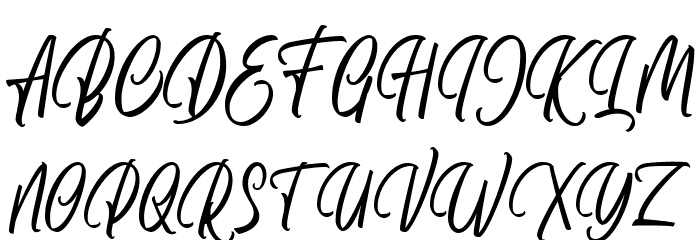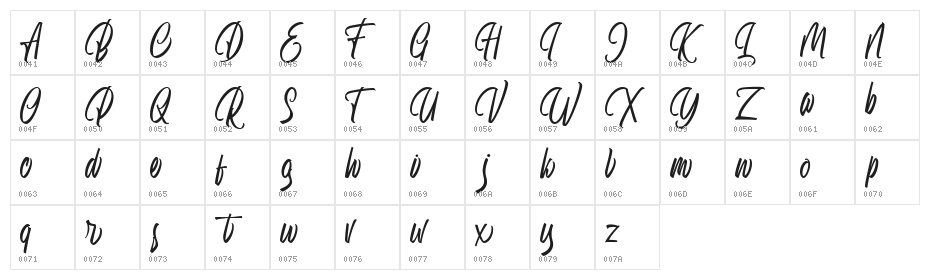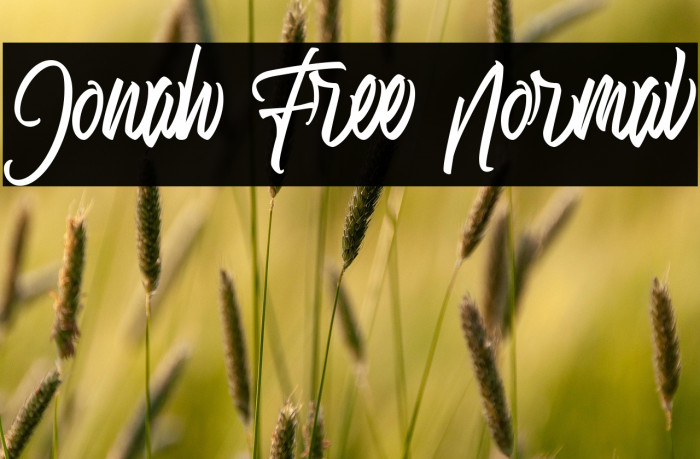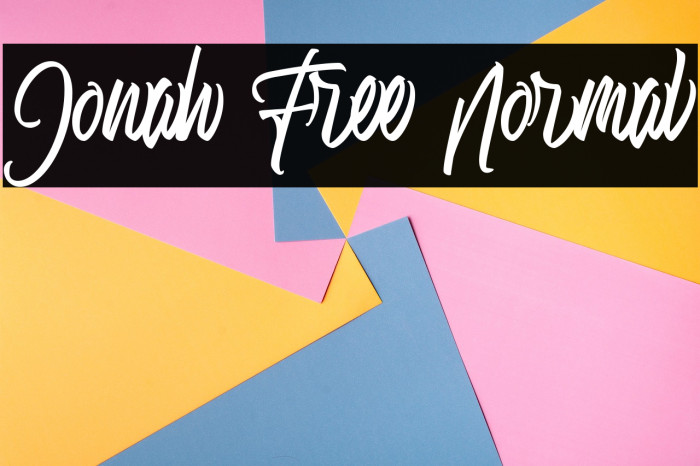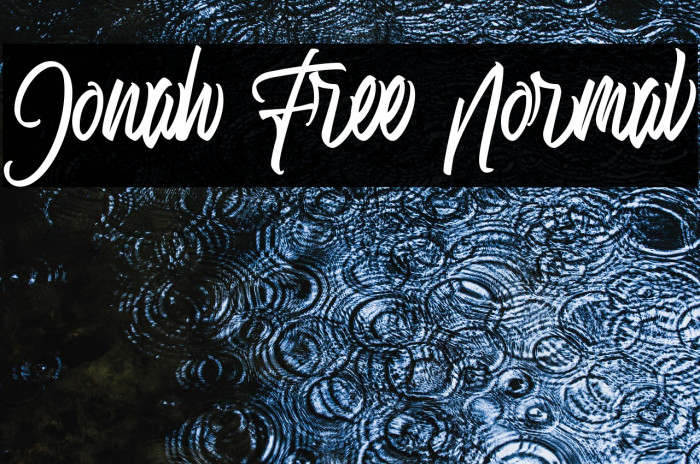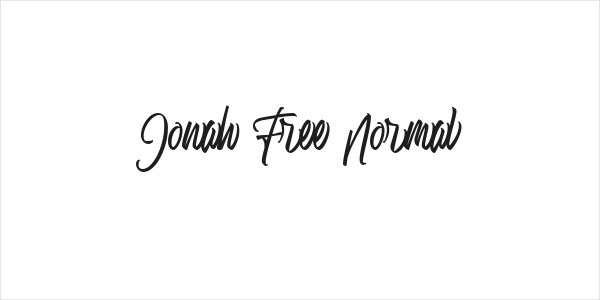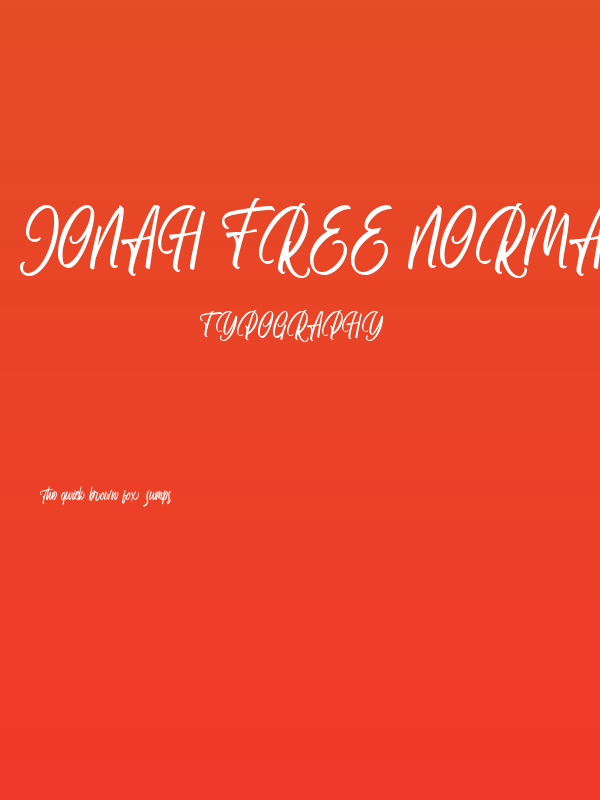
Jonah Free Normal Font
Jonah Free Normal Description
This font features a dynamic and flowing script style, characterized by its elegant, cursive letterforms. The uppercase letters are bold and slightly slanted, giving a sense of movement and fluidity. The lowercase letters maintain a consistent style, with smooth connections between each character, enhancing the script's cohesive appearance. The font's overall design is both sophisticated and approachable, making it suitable for a variety of creative applications. Its unique style is perfect for adding a personal touch to any project.